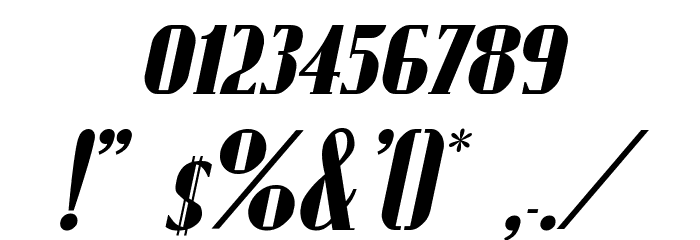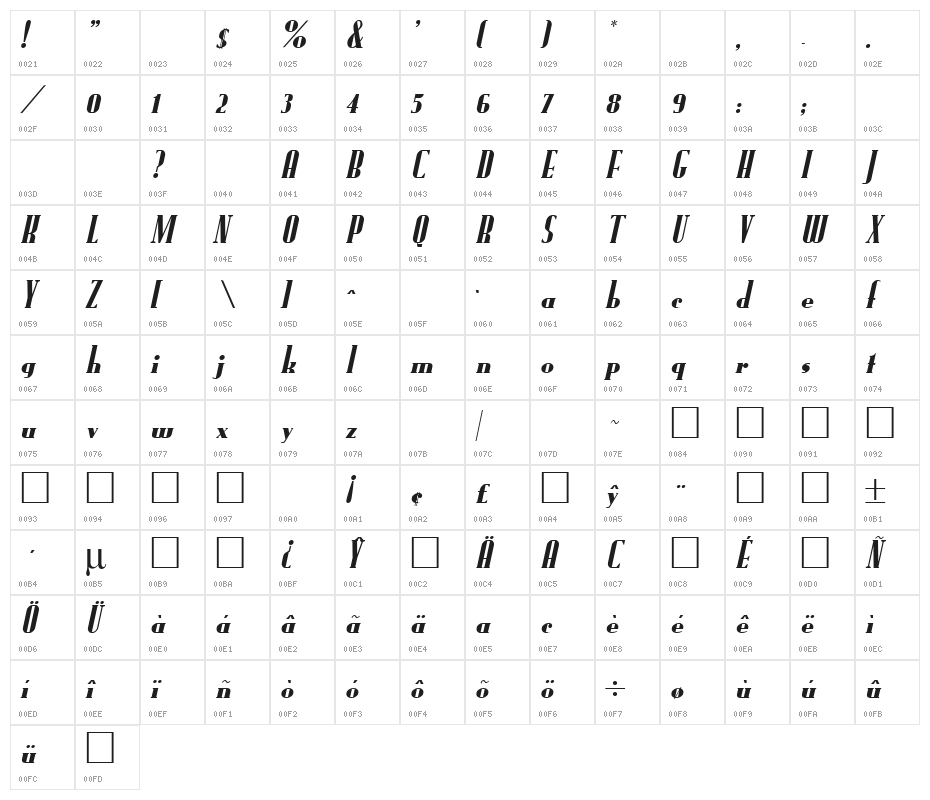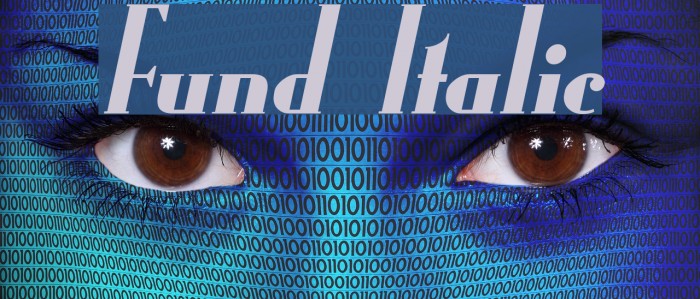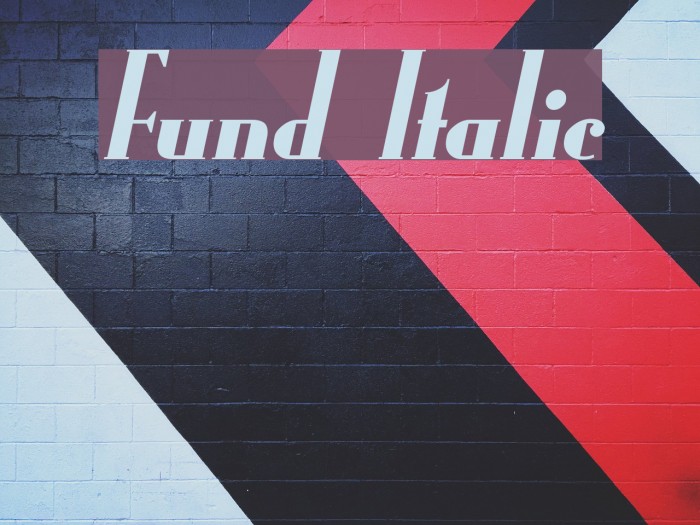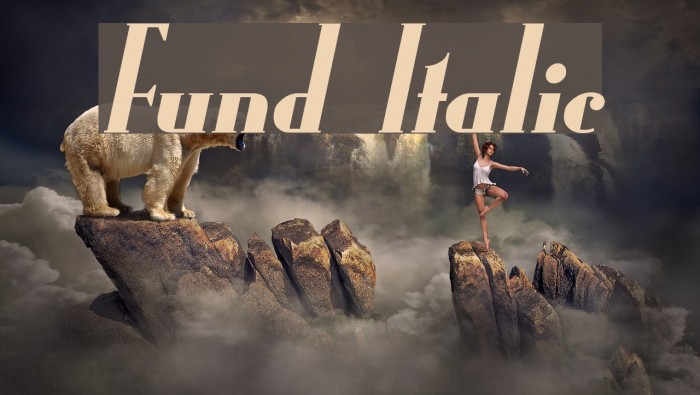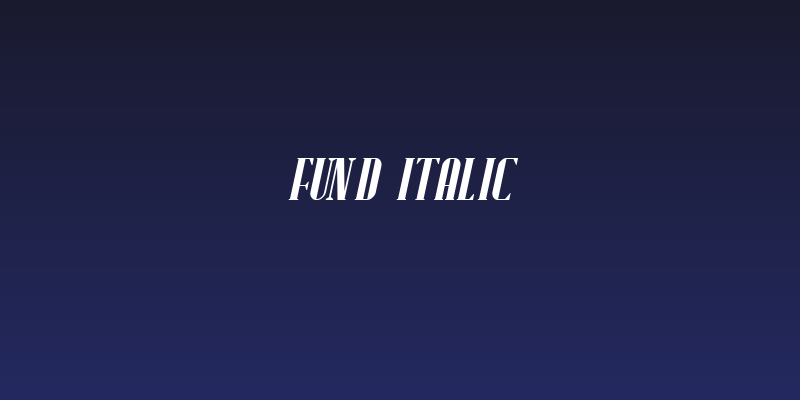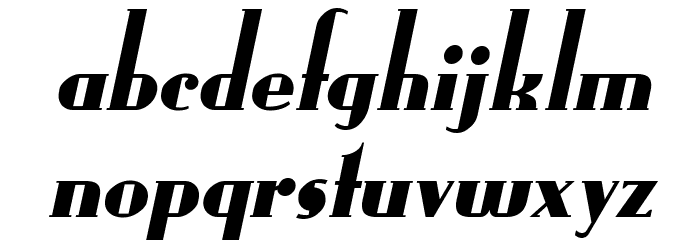
Fund Italic Font
Fund Italic Description
This font features a bold and dynamic italic style, characterized by its sharp angles and elongated serifs. The uppercase letters exhibit a strong presence with a forward-leaning posture, while the lowercase letters maintain a consistent slant, enhancing the overall fluidity. The numerals are equally bold, ensuring readability and impact. Special characters are designed with the same attention to detail, making them suitable for various applications. The font's high contrast between thick and thin strokes adds to its dramatic appearance, making it ideal for headlines and attention-grabbing text.
| Proposed Projects | Ideal for magazine covers, branding, advertising, and poster design. |